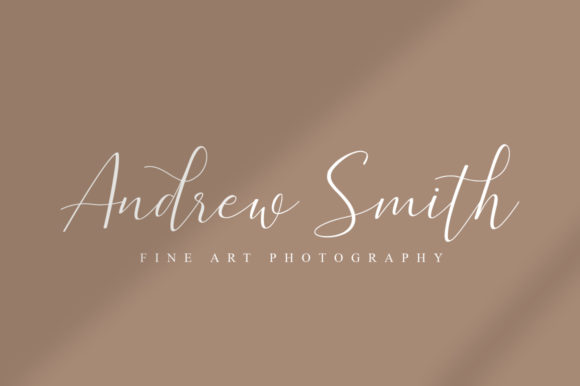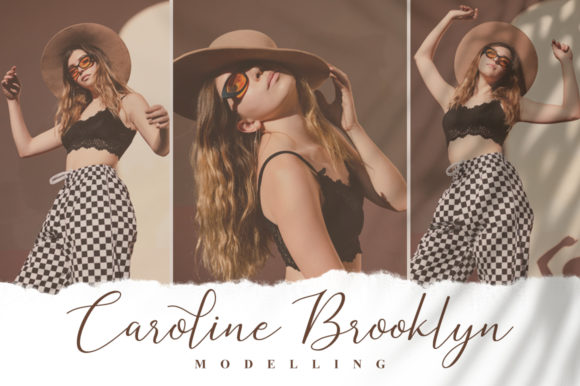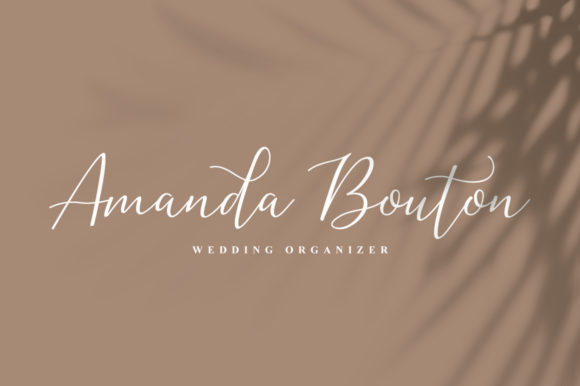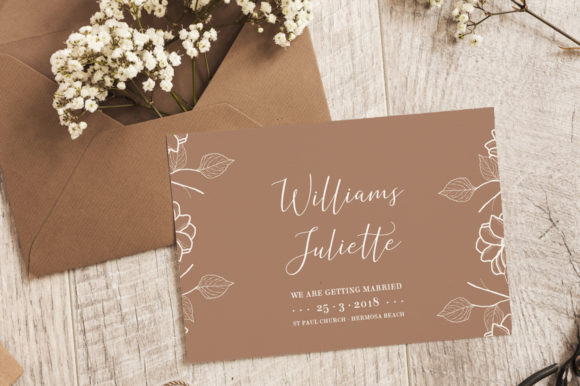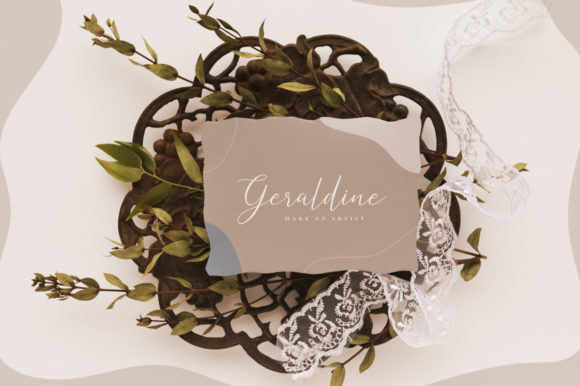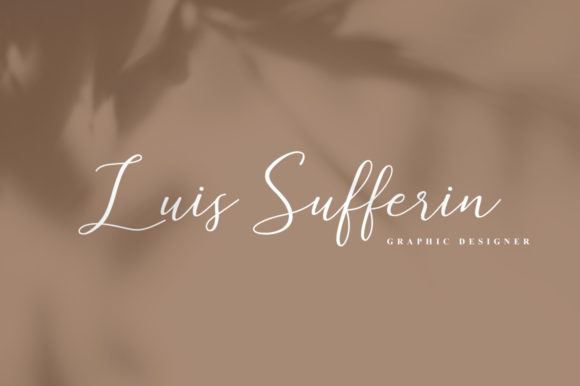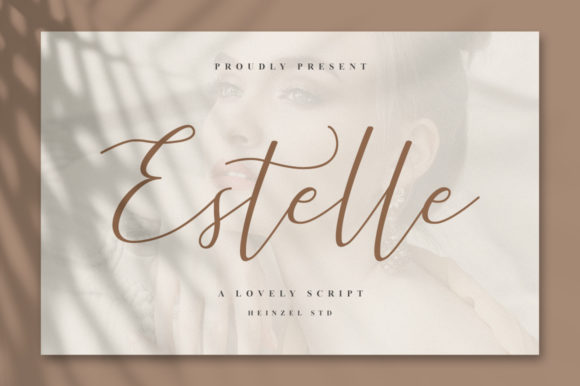
Introducing Estelle Font: The Epitome of Elegance and Versatility
For designers and crafters seeking a font that embodies both sophistication and modern flair, look no further than Estelle Font. This exceptional handwritten font masterfully blends traditional calligraphic elements with a contemporary twist, making it an invaluable asset for a myriad of creative projects. From enhancing letterheads and titles to elevating stationery designs, Estelle Font is poised to become your go-to choice for adding a touch of elegance to your work.
The Essence of Estelle Font
Estelle Font is not just a typeface; it’s an expression of refined beauty and versatility. Its classy calligraphic influences are evident, yet it feels refreshingly modern and approachable. This unique balance allows Estelle to transcend traditional boundaries, making it suitable for a wide array of applications. Whether you’re working on a high-end brand identity, crafting bespoke wedding stationery, or simply looking to add a personal touch to your digital creations, Estelle Font offers the perfect blend of style and adaptability.
Unleashing Creativity with Estelle
One of the standout features of Estelle Font is its incredible versatility. Its elegant strokes and fluid connections make it an ideal choice for projects where making a statement is key. Imagine incorporating Estelle into your:
- Letterheads: Instantly elevate your professional correspondence with a font that exudes confidence and sophistication.
- Titles: Add a touch of glamour to your presentations, reports, or digital content with Estelle’s refined charm.
- Stationery: From wedding invitations to personal greeting cards, Estelle brings a level of elegance that makes any piece feel special.
Why Designers and Crafters Love Estelle
Designers and crafters alike are drawn to Estelle Font for several compelling reasons:
- Unique yet Versatile: Estelle’s distinctive character ensures your work stands out, yet it’s versatile enough to be used across various projects.
- Elegant and Modern: Achieve a look that’s both timelessly elegant and refreshingly contemporary.
- User-Friendly: Designed to be easy to read and beautifully rendered, Estelle ensures your message is conveyed with style and clarity.
Tips for Maximizing Estelle’s Potential
To truly harness the power of Estelle Font, consider the following tips:
- Pair with Complementary Fonts: Combine Estelle with simpler sans-serifs or serif fonts to create visual interest and hierarchy in your designs.
- Experiment with Colors: While Estelle’s beauty shines in black and white, don’t be afraid to explore colored backgrounds or gradients for added depth.
- Play with Sizes: Utilize Estelle in various sizes to emphasize certain words or phrases, adding dynamism to your text.
Estelle Font represents a significant addition to any designer’s or crafter’s toolkit. Its unique blend of elegance, versatility, and modernity makes it an indispensable asset for creating standout projects. Whether you’re aiming to add a touch of sophistication to your professional work or seeking to elevate your personal crafting projects, Estelle Font is sure to exceed your expectations. Embrace the elegance and versatility of Estelle, and watch your designs transform with a font that truly understands the essence of beautiful typography.